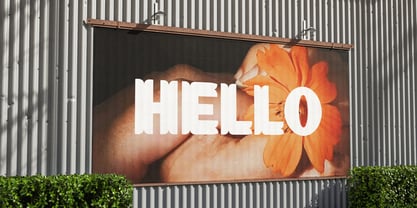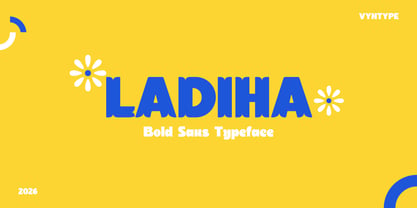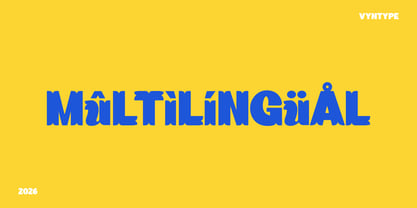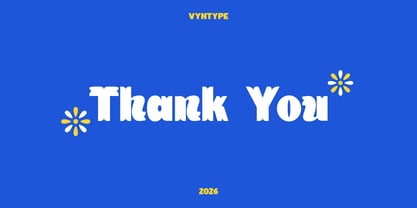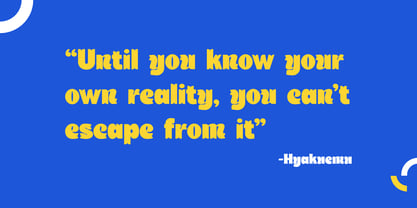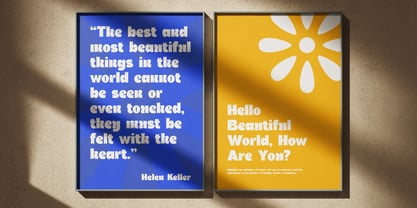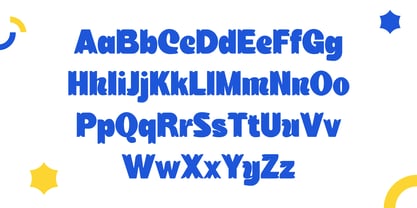
Ladiha
by Vyantype Studio
The Ladiha Font Family was designed by Hero Novyanto and published by Vyantype Studio. Ladiha contains 1 styles. More about this family
Ladiha is a bold variation of a sans serif typeface featuring subtle curves that add warmth and feminine typography. These premium bold sans serif is designed for creators who prioritize clarity by eliminating the unnecessary. Ladiha emphasizes balanced proportions and clean ornamentation, delivering a commanding presence both on screen and in print. It is an ideal choice for modern visual identities, branding, and packaging, making it versatile for various design applications.